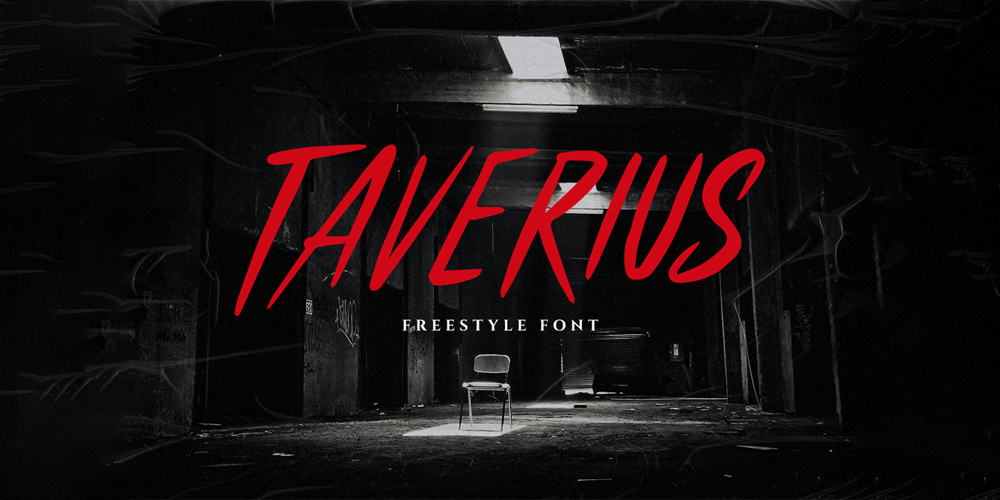
Taverius Font Family was designed by Hendry Juanda and published by Letterhend. Taverius contains 1 styles and family package options. Introducing, Taverius- a hand drawn with freestyle which is purposely made for headline, display or logotype, and signature. This type of font perfectly made to be applied especially in logo, and the other various formal forms such as invitations, labels, logos, magazines, books, greeting / wedding cards, packaging, fashion, make up, stationery, novels, labels or any type of advertising purpose.Features : uppercase & lowercase numbers and punctuation multilingual PUA encoded We highly recommend using a program that supports OpenType features and Glyphs panels like many of Adobe apps and Corel Draw, so you can see and access all Glyph variations.